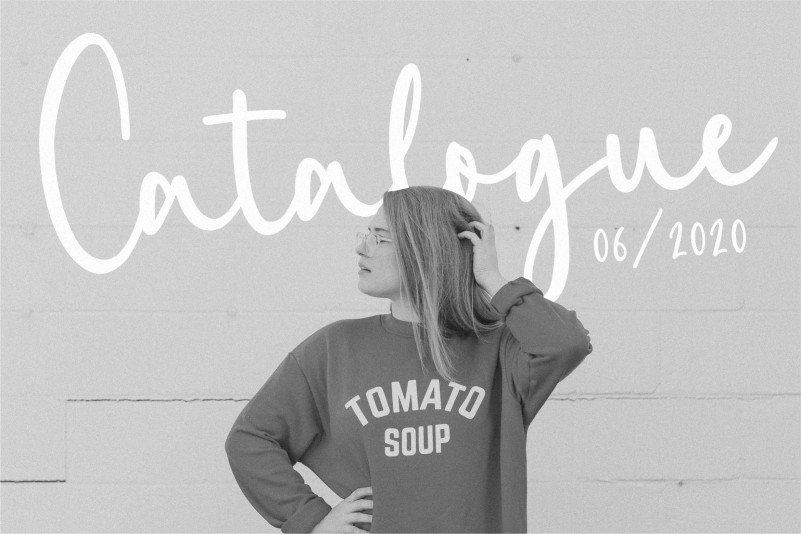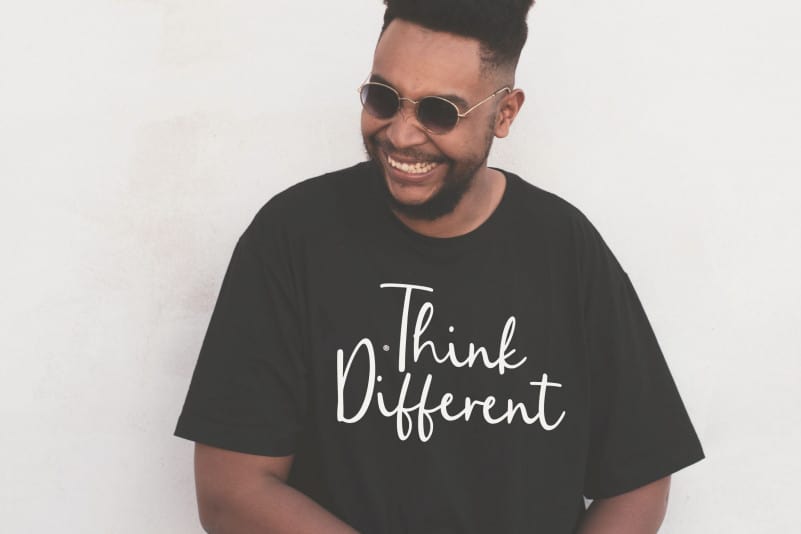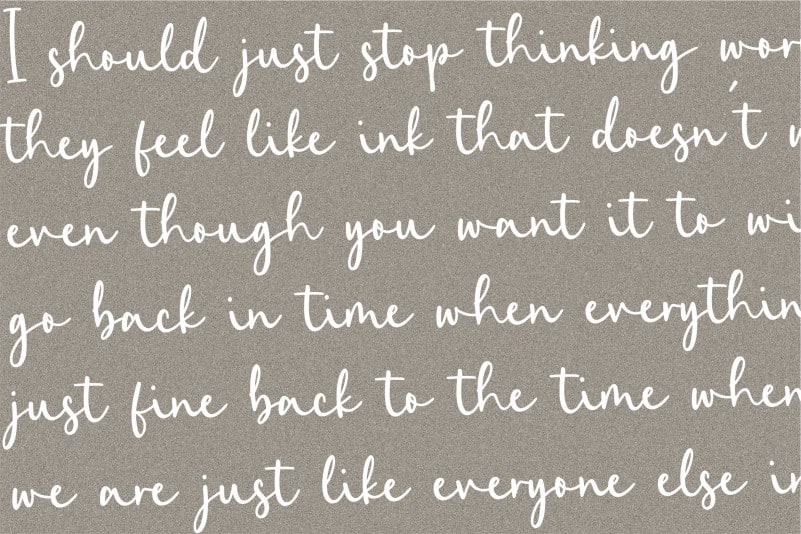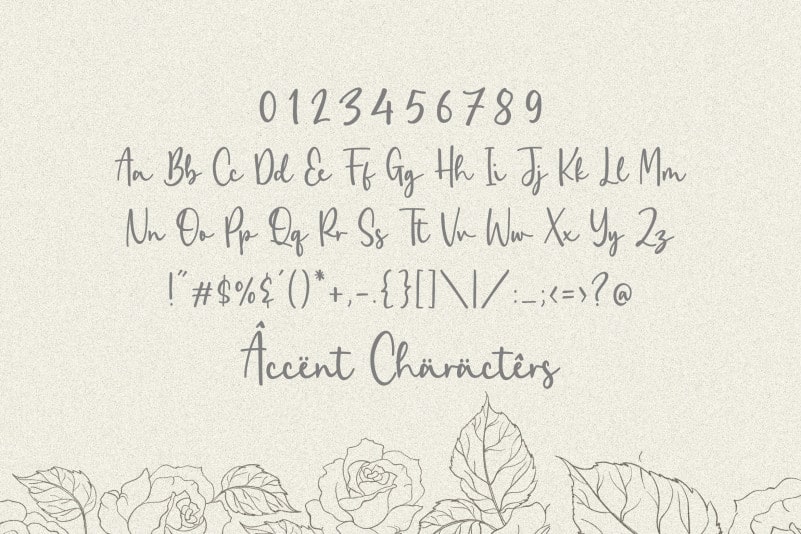
Zaniola Lavolce Modern Callihgraphy Font
Proudly Present, Zaniola Lavolce Modern Callihgraphy Font.
Zaniola Lavolce is a Modern Callihgraphy Font.
It is perfect for product packaging, branding project, megazine, social media, wedding, or just used to express words above the background.